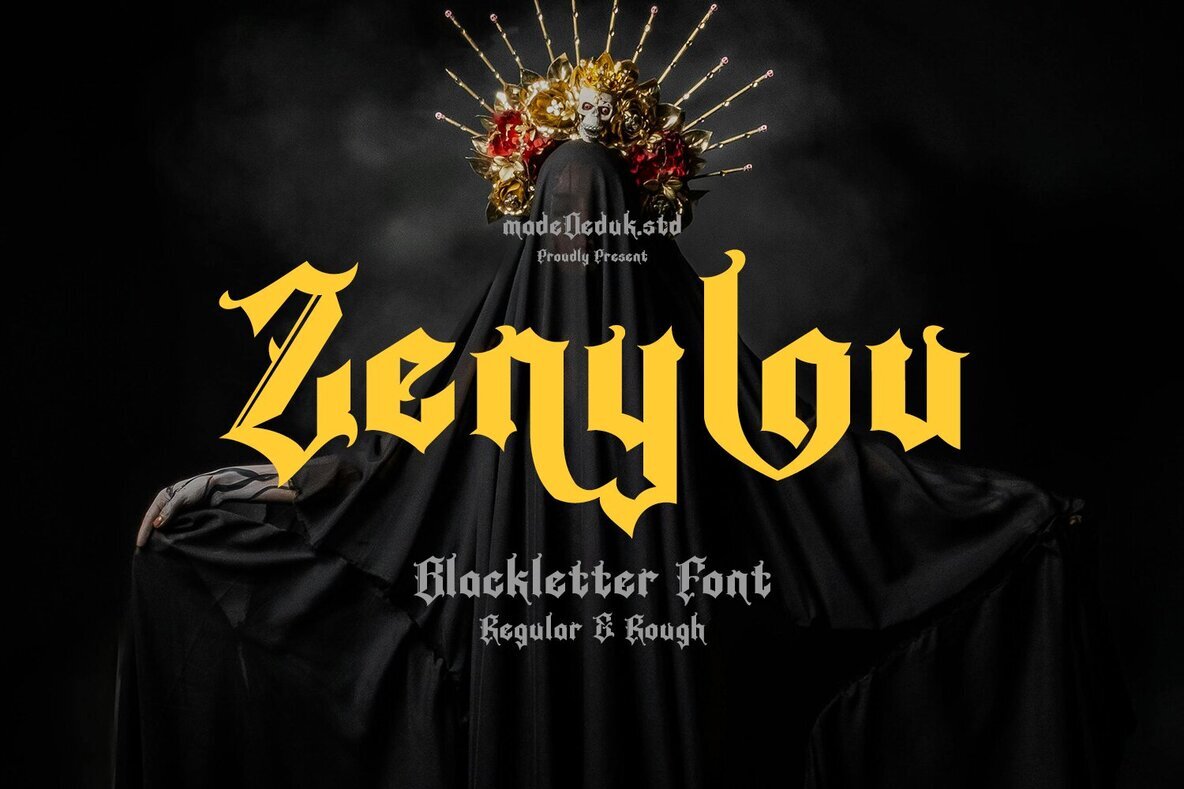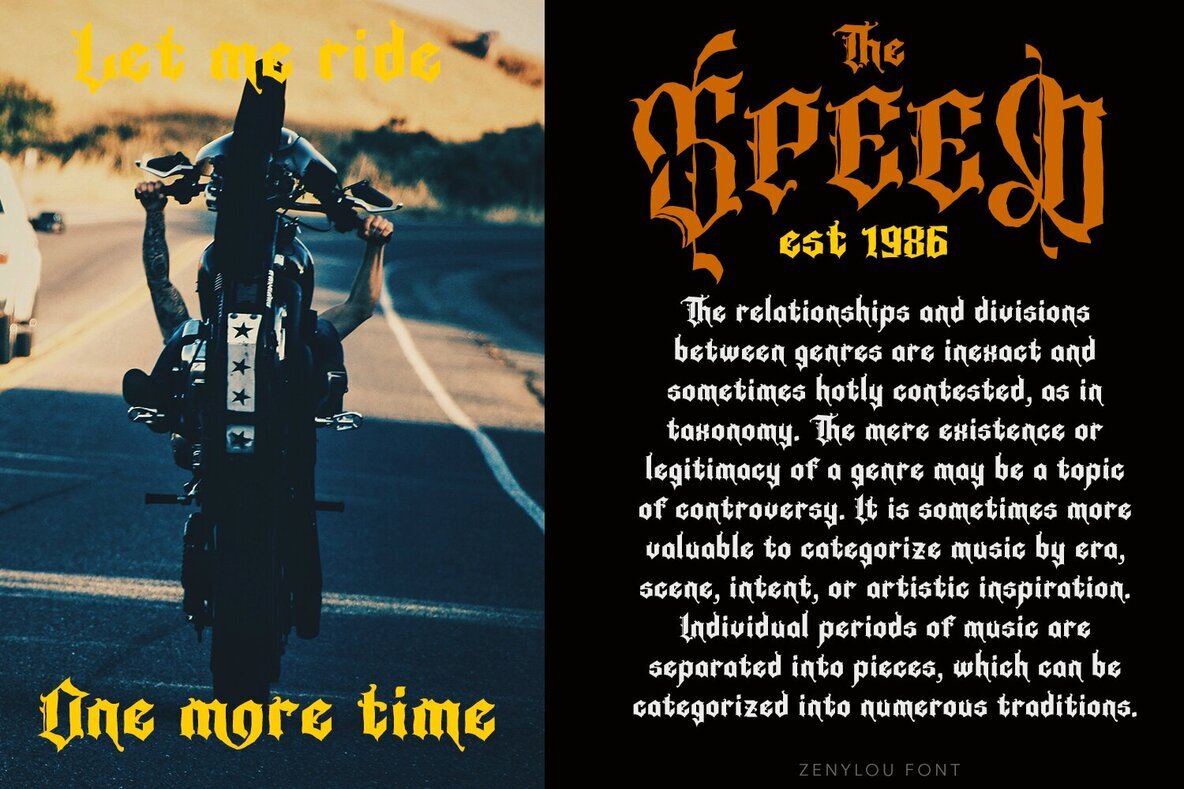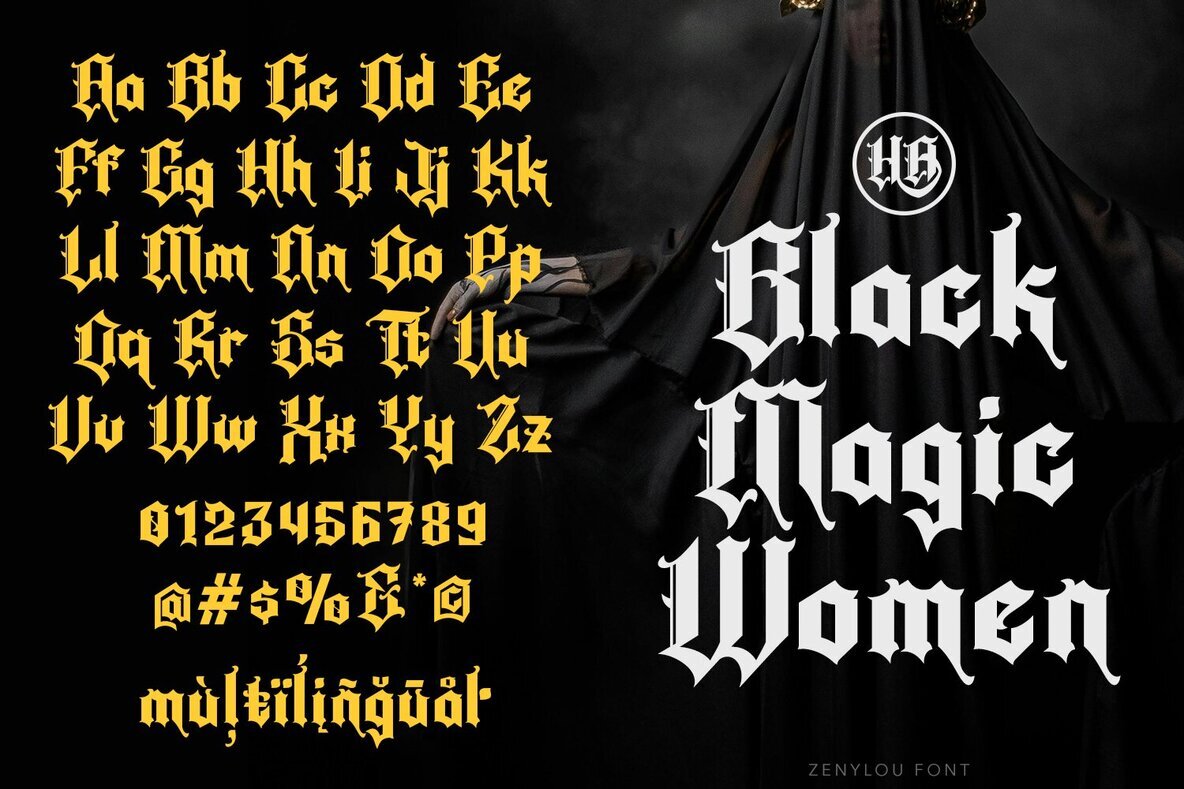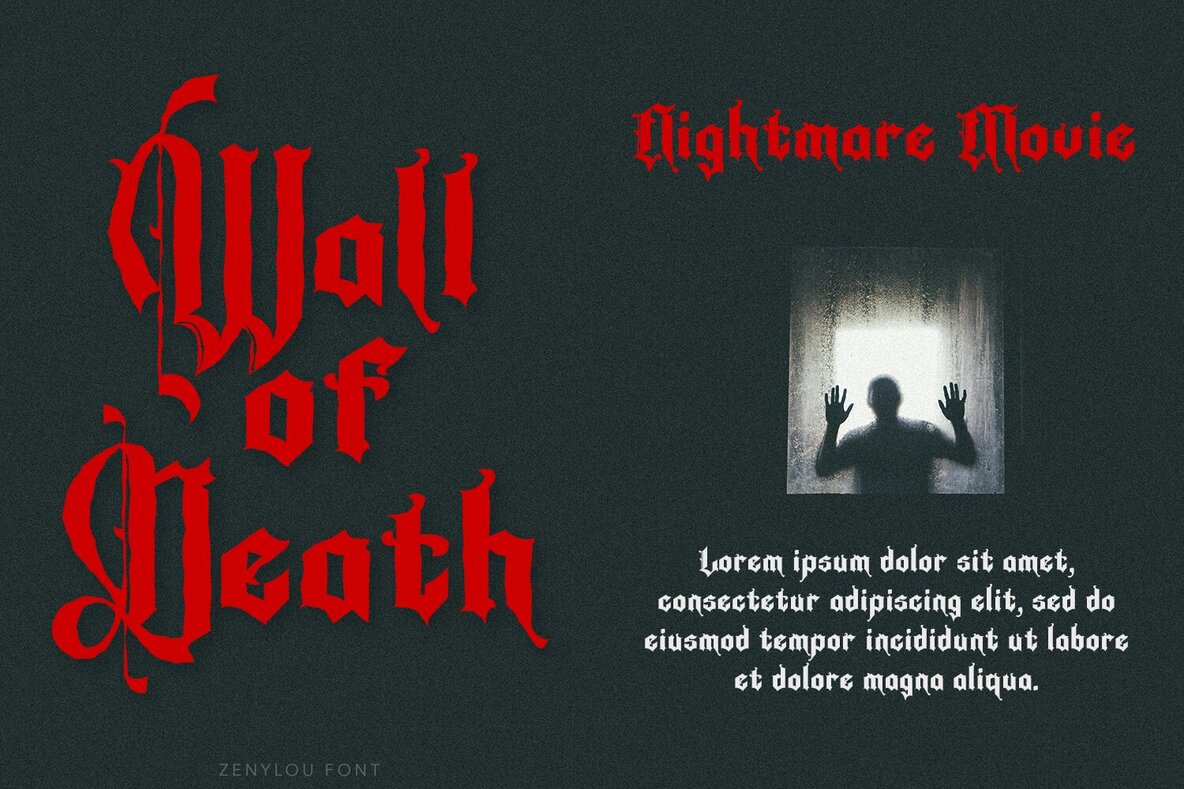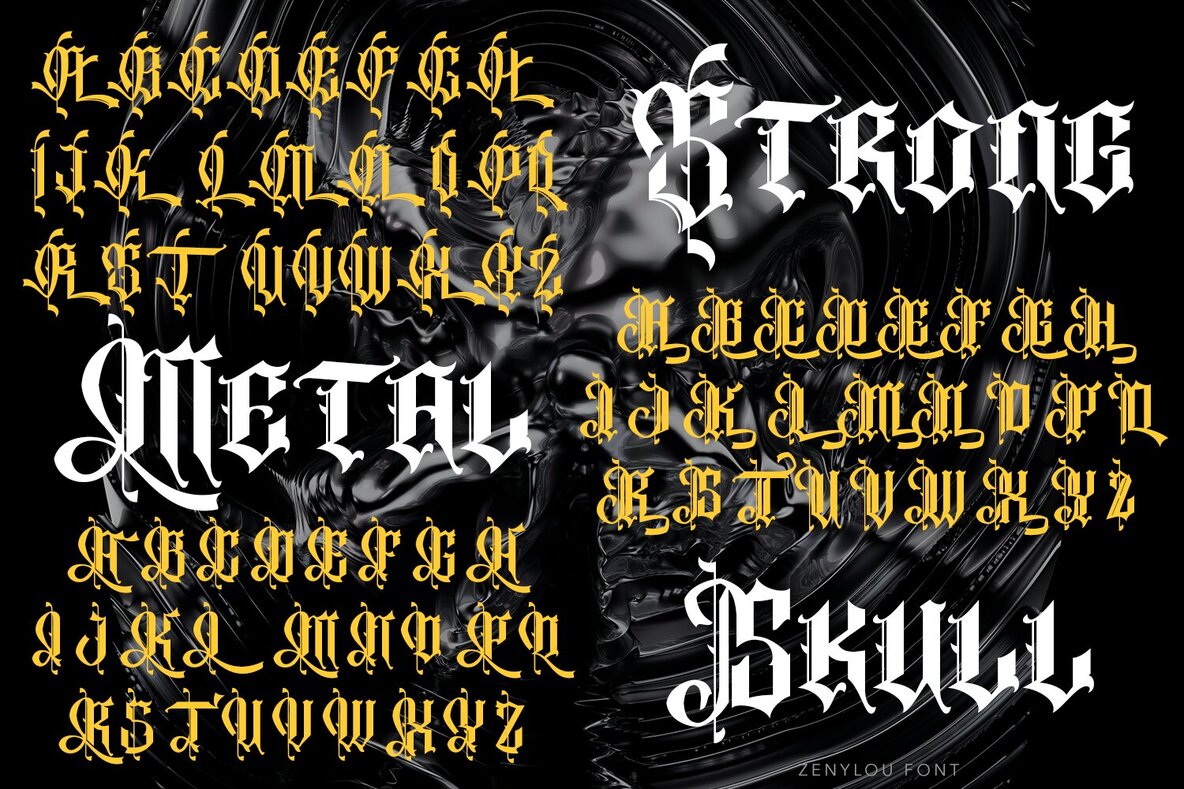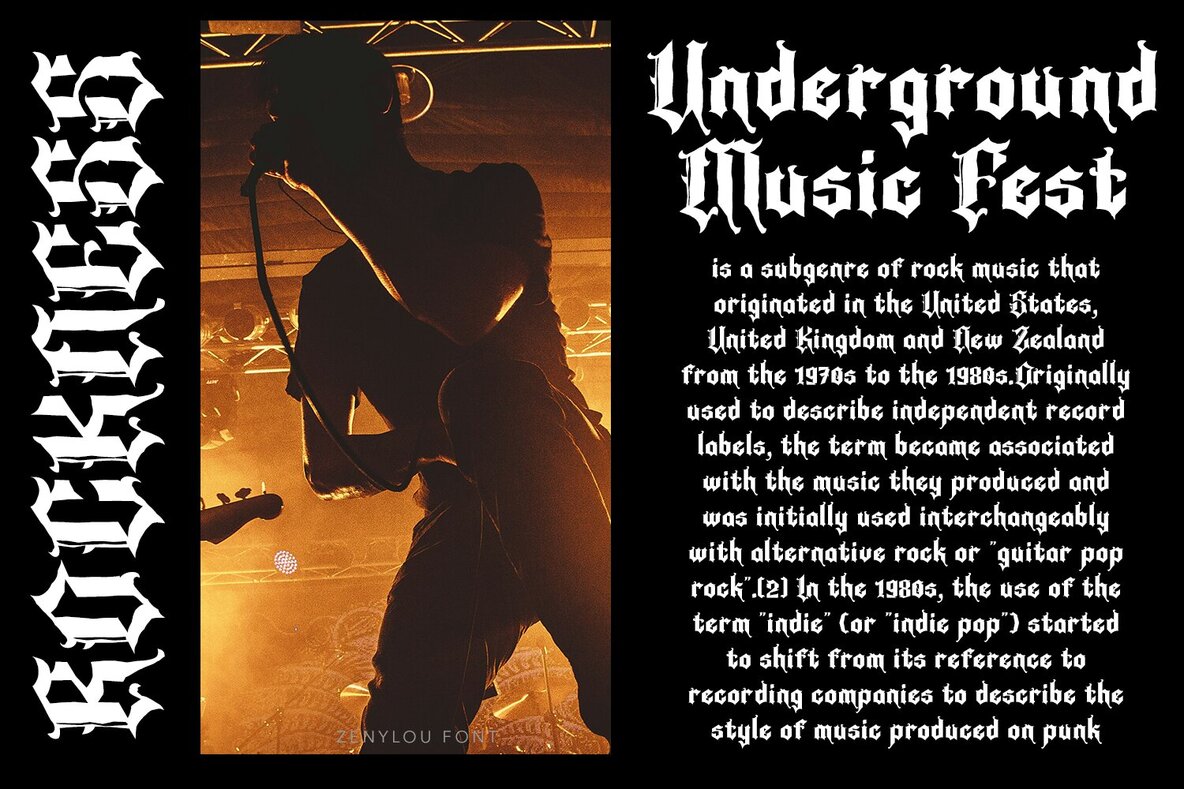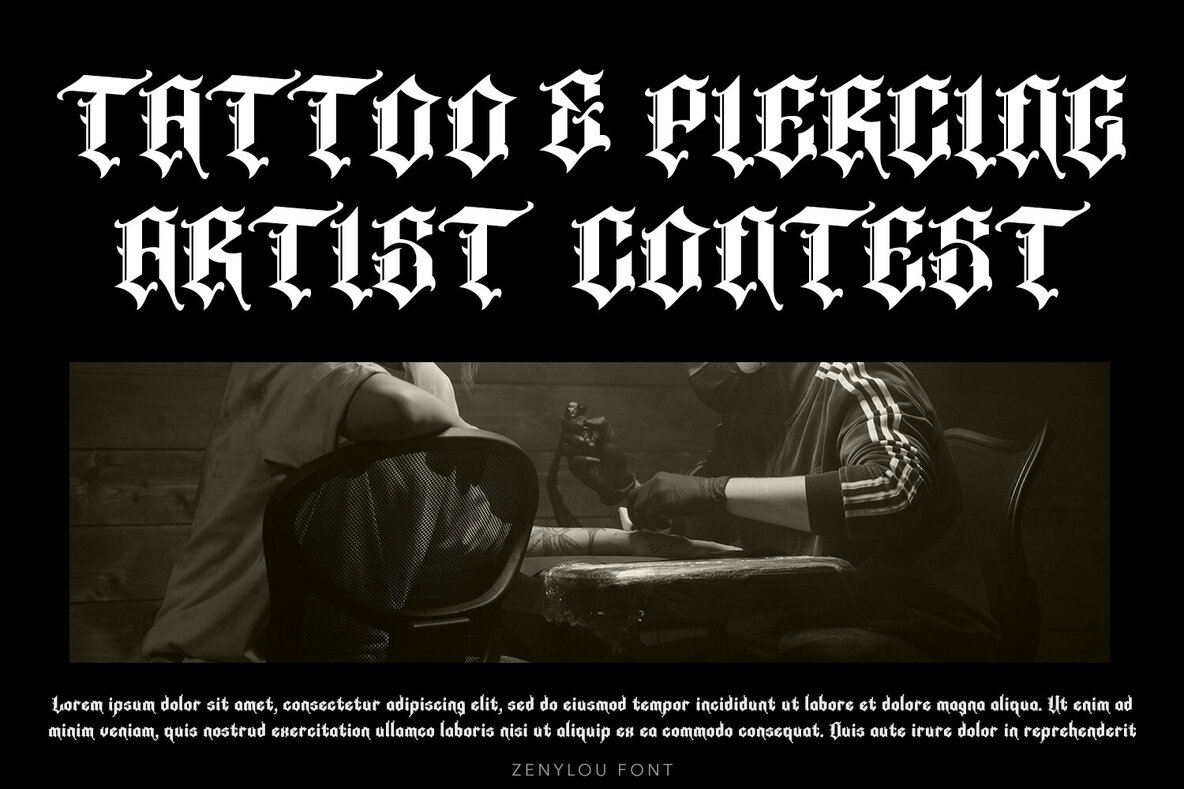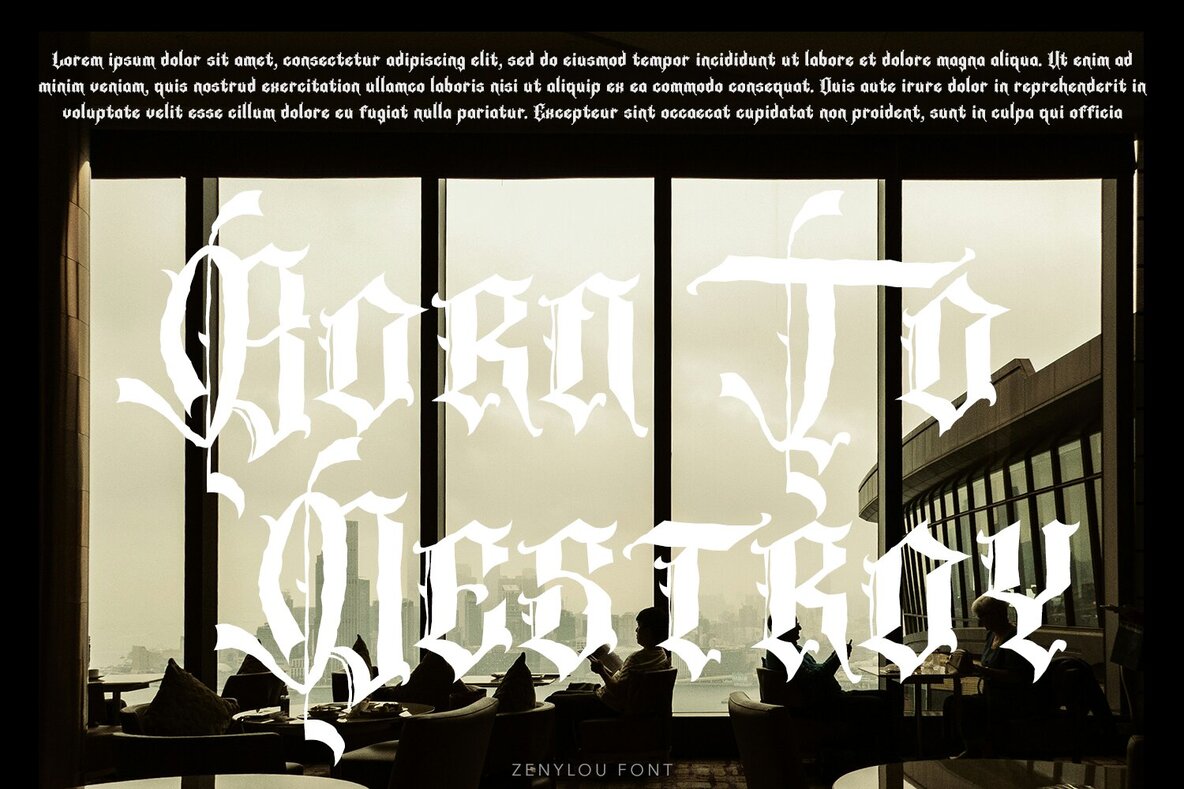
Zenylou Font
Zenylou Regular
Zenylou Rough
Explore the unique allure of Zenylou, a Blackletter font that effortlessly bridges historical and modern aesthetics. This font is perfect for adding a touch of classic gothic elegance to your designs, making it an ideal choice for brands seeking a timeless appeal. Zenylou is versatile and enhances everything from Branding and Logos to Greeting Cards and Stationery Design. Incorporate Zenylou into your projects to infuse them with a personality-rich style, perfect not only for vintage enthusiasts but also for modern design aficionados.Zenylou: The Harmony of History and Modernity
Perfect For Various Creative Applications